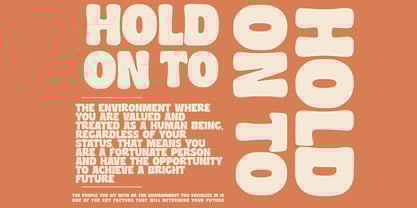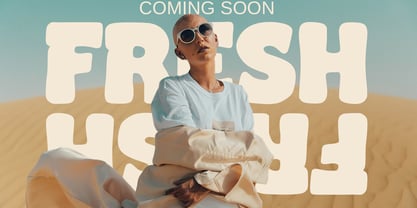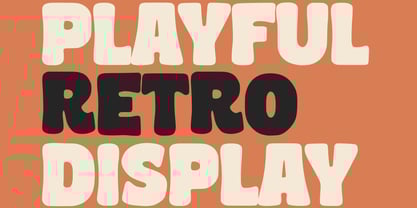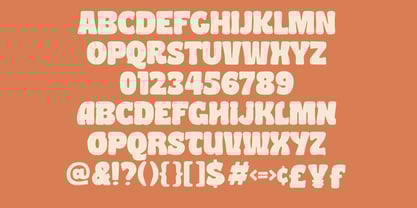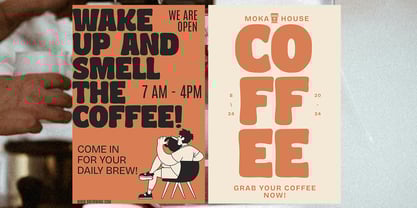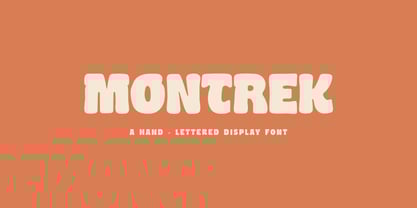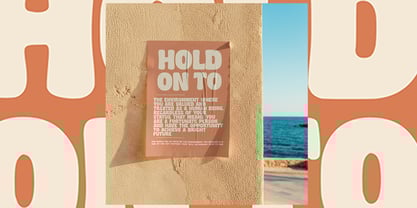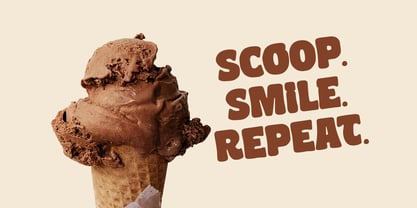
Montrek
by Arendxstudio
The Montrek Font Family was designed by Asep Rendi and published by Arendxstudio. Montrek contains 1 styles.
Montrek is a fun and expressive typeface designed to bring a bold yet friendly character to your creative projects. With its hand-lettered style and distinctive personality, Montrek captures a sense of playfulness that works beautifully for branding, posters, packaging, invitations, and digital designs. Its rounded and dynamic forms make it stand out in headlines while still maintaining excellent readability. Montrek is more than just a display typeface—it’s a creative tool that adds energy, charm, and a unique touch to any design project. Perfect for those who want to communicate with warmth and originality, Montrek offers versatility that adapts to both modern and retro-inspired aesthetics.